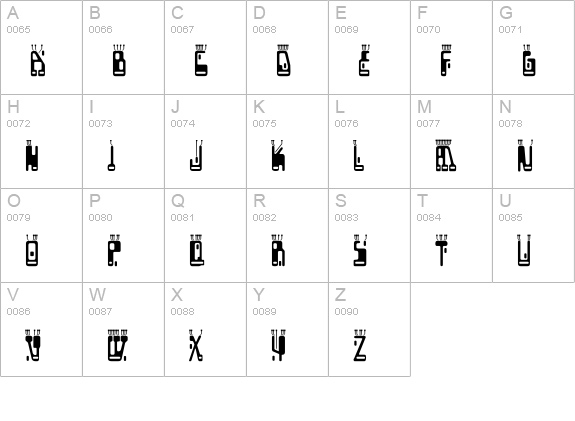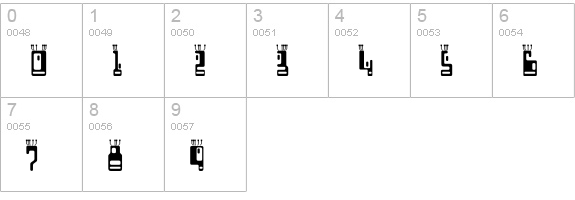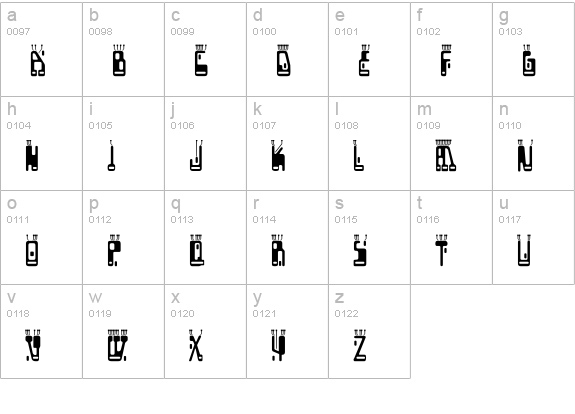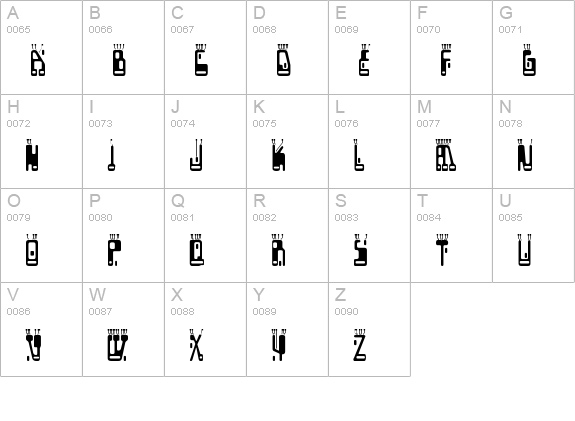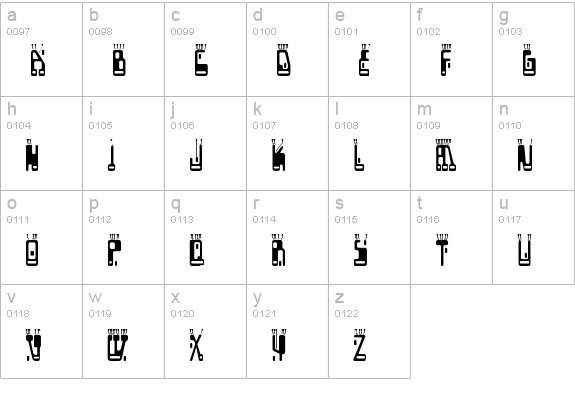
Introducing Boron font, a sleek and modern typeface that exudes sophistication and elegance. With its clean lines and versatile design, Boron is perfect for a wide range of projects, from branding and packaging to editorial design and web content. This timeless font effortlessly combines classic elements with a contemporary twist, making it a go-to choice for designers looking to elevate their creations. The best part? Boron font is available for free download at FontsMarket.com. Simply head over to the website and get your hands on this stunning typeface today. Whether you're a seasoned professional or just starting out, Boron font is sure to become a staple in your font library. Don't miss out on this fantastic opportunity to enhance your designs with the beauty and sophistication of Boron font.